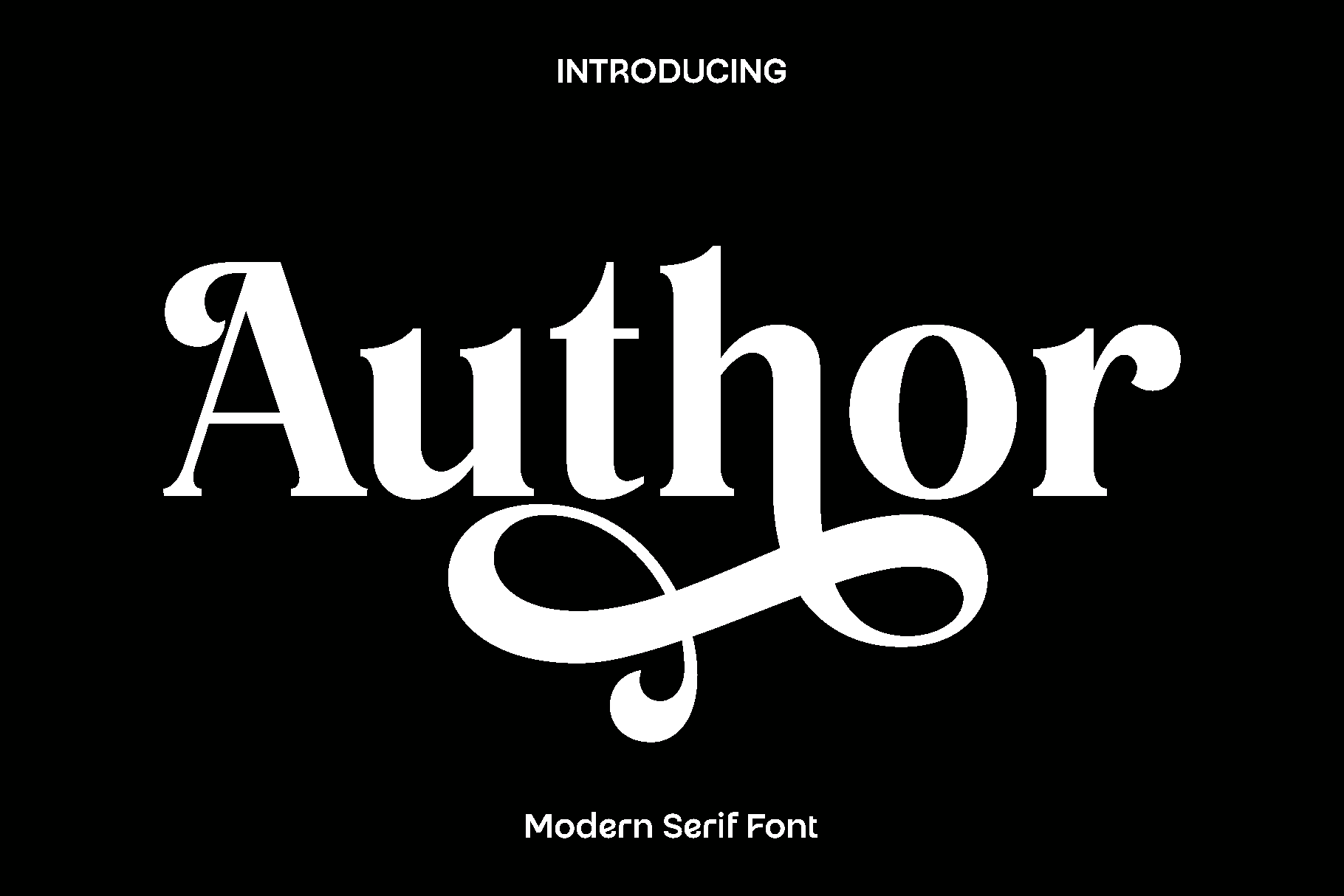
Author - Modern Serif Font
Author is a refined serif display font designed to express timeless beauty, femininity, and classic elegance. Inspired by graceful editorial typography and romantic design aesthetics, Author brings a soft yet confident character to every letterform. Its carefully crafted serifs and flowing alternates create a sophisticated rhythm that feels expressive, charming, and visually captivating.
This font shines in projects that demand elegance and personality. Author is perfectly suited for logos and branding, wedding invitations, stationery, luxury packaging, labels, photography watermarks, social media content, advertisements, and printed quotes. The beautiful alternate characters add a decorative touch that allows designers to create unique and personalized compositions with ease.
Author feels graceful, warm, and artistic. It balances classic serif structure with a modern decorative sensibility, making it versatile across both digital and print designs. Whether used for special events, boutique branding, or elegant product designs, Author enhances your work with a polished and feminine presence that leaves a lasting impression.
Designed for creatives who value detail and storytelling, Author transforms simple text into expressive typography. Its elegant style and display strength make it an essential font for designers looking to add beauty, refinement, and character to their visual projects.
Author Serif Display Font Features:
• Elegant serif display characters
• Decorative alternate stylist characters
• Suitable for branding, invitations, packaging, and editorial use